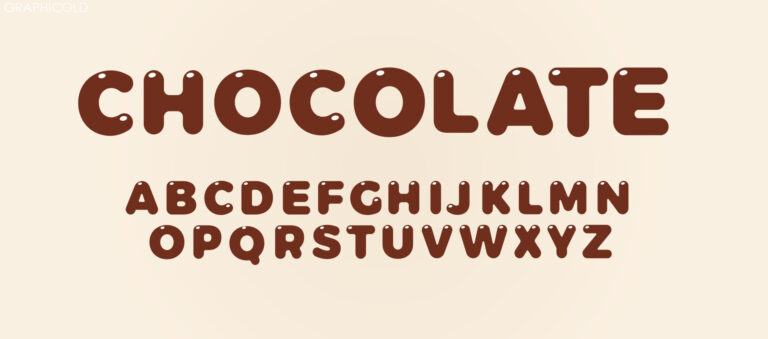
Deliciously Stylish: The Irresistible Charm Of Chocolate Fonts
Title: Chocolate Font: A Delightful Treat for Typography Lovers
Introduction:
In the world of graphic design and typography, fonts play a crucial role in conveying messages and setting the tone of a visual composition. Among the vast array of font styles available, one that stands out as a unique and delightful treat is the Chocolate font. This article delves into the characteristics and appeal of this delectable typographic style.
1. Origin and Inspiration:
The Chocolate font draws its inspiration from the delectable world of chocolates. The smooth curves and intricate details of this font style mimic the texture and appeal of chocolate bars and desserts. The font’s creator sought to capture the essence of indulgence and pleasure associated with chocolate through this typographic design.
2. Characteristics:
The Chocolate font displays a distinctive charm with its rounded edges and playful swirls. It mimics the smooth, glossy texture of chocolate, evoking a sense of warmth and comfort. The font style often features exaggerated serifs and whimsical embellishments resembling chocolate drizzle or curls. Its visual appeal lies in combining elegance and playfulness, making it suitable for a variety of design projects.
3. Versatility in Design:
The Chocolate font offers designers a versatile tool that can be utilized across various applications. Its unique appearance makes it an excellent choice for packaging designs for chocolate products or confectionery. Additionally, it adds a touch of sophistication to restaurant menus, bakery logos, or dessert recipe books. The font’s versatility extends to digital applications as well, making it a popular choice for digital marketing campaigns, social media posts, and website headers.
4. Usage Tips:
To make the most of the Chocolate font, designers should keep a few tips in mind. Maintaining a balance between the typeface’s playfulness and legibility is crucial. Using it sparingly as a display font for headlines or titles is recommended to avoid overwhelming the audience. Pairing the Chocolate font with clean and simple sans-serif fonts for body text helps to create an aesthetically pleasing contrast.
5. Future Trends:
As the world of typography continues to evolve, the Chocolate font is expected to remain a favorite among designers. Innovations in technology and digital design platforms have allowed for more intricate and realistic font styles. We may soon see variations of the Chocolate font that resemble specific chocolate brands or incorporate 3D elements, further elevating its appeal.
Conclusion:
The Chocolate font is a delightful treat for typography enthusiasts, offering a unique blend of elegance and playfulness. Its resemblance to the smooth texture of chocolate adds a touch of indulgence to various design projects. As designers continue to explore creative possibilities, the Chocolate font is expected to remain a popular choice for adding a bit of sweetness and charm to visual compositions.